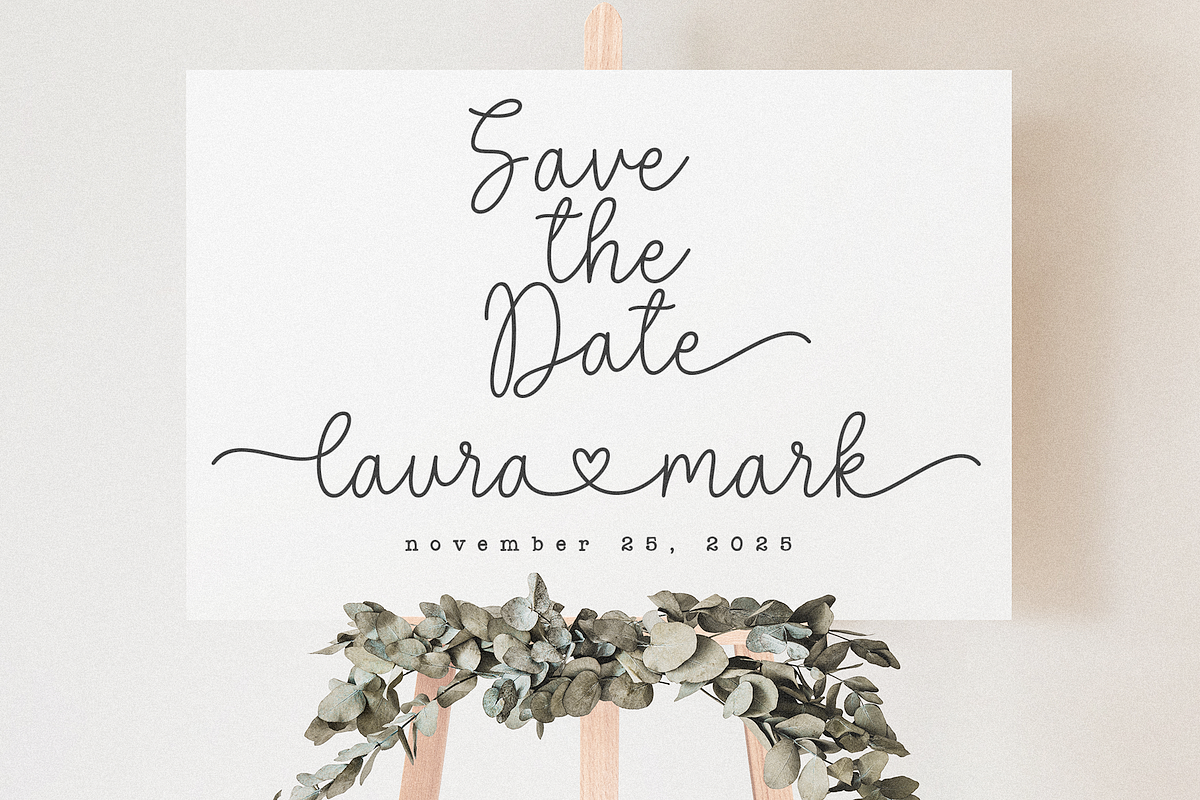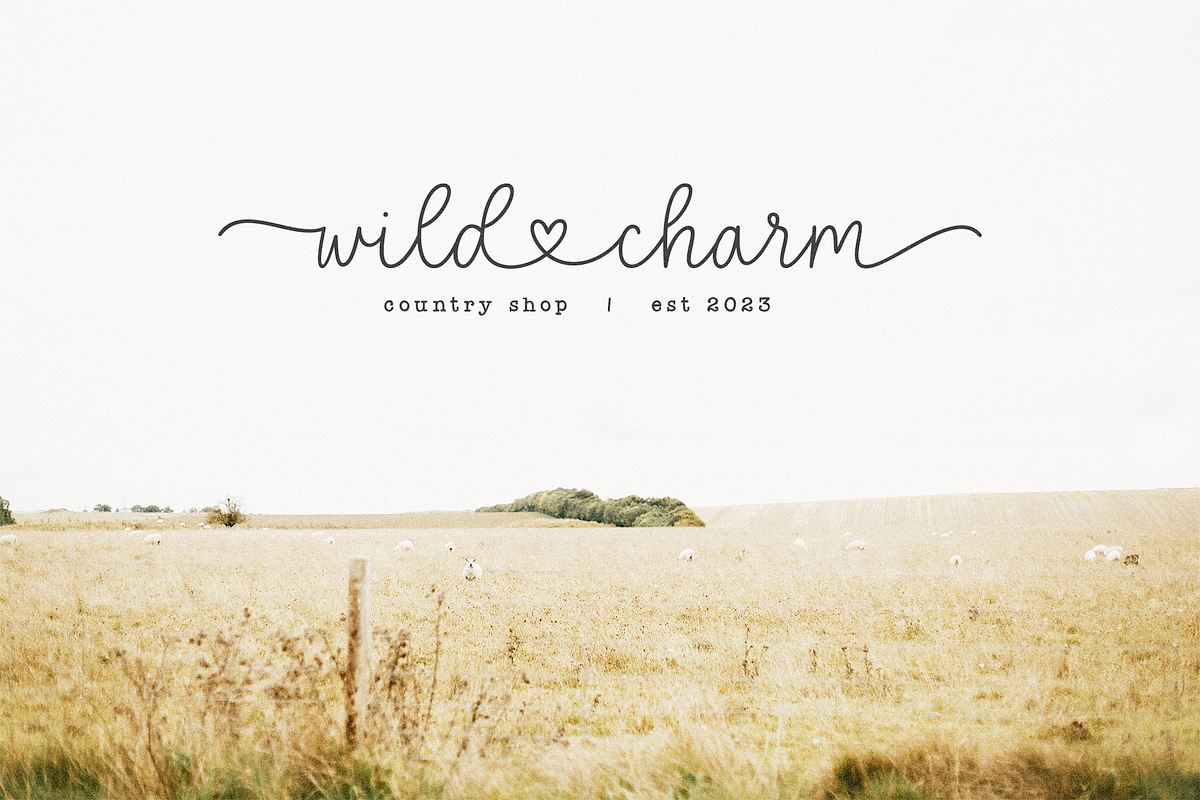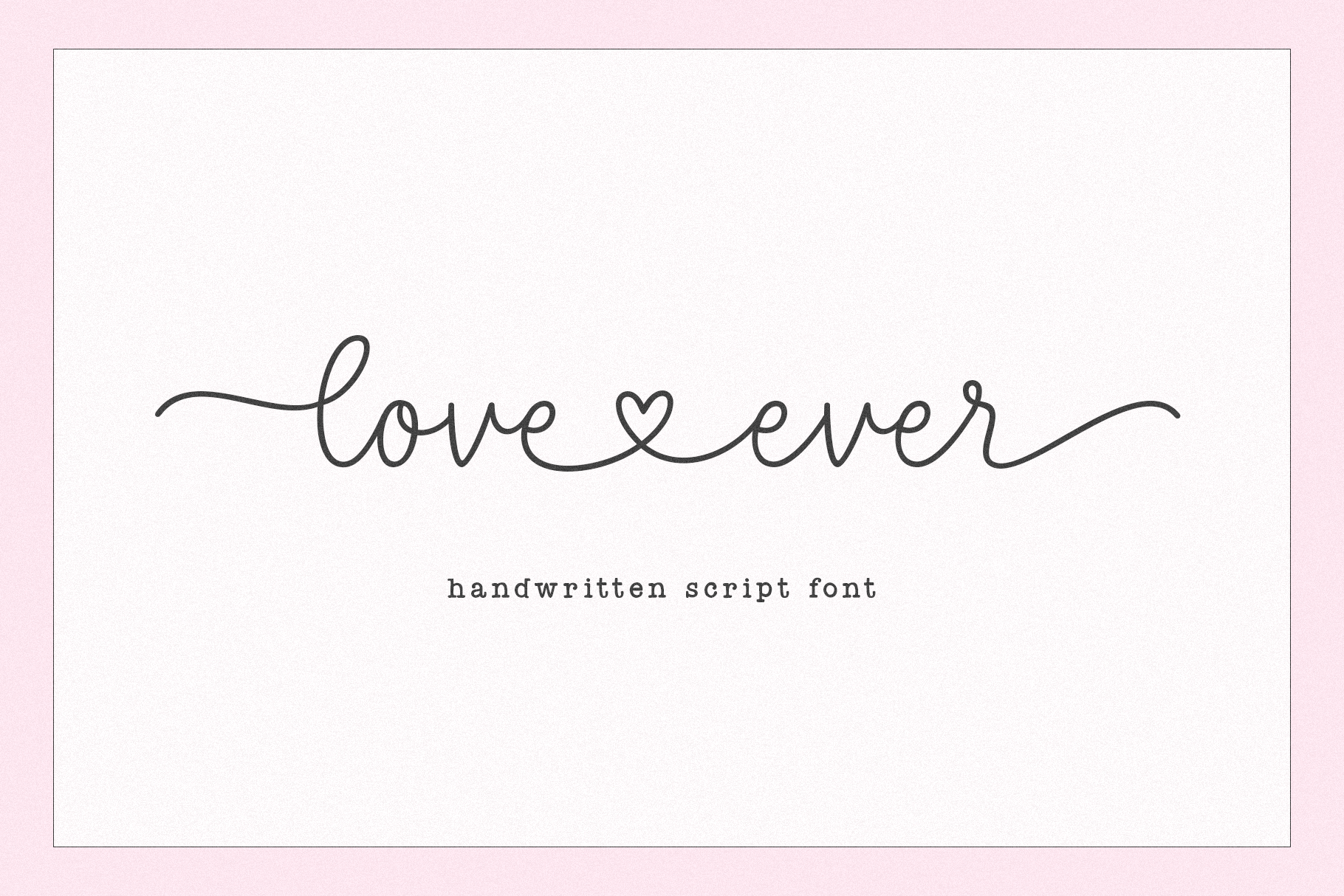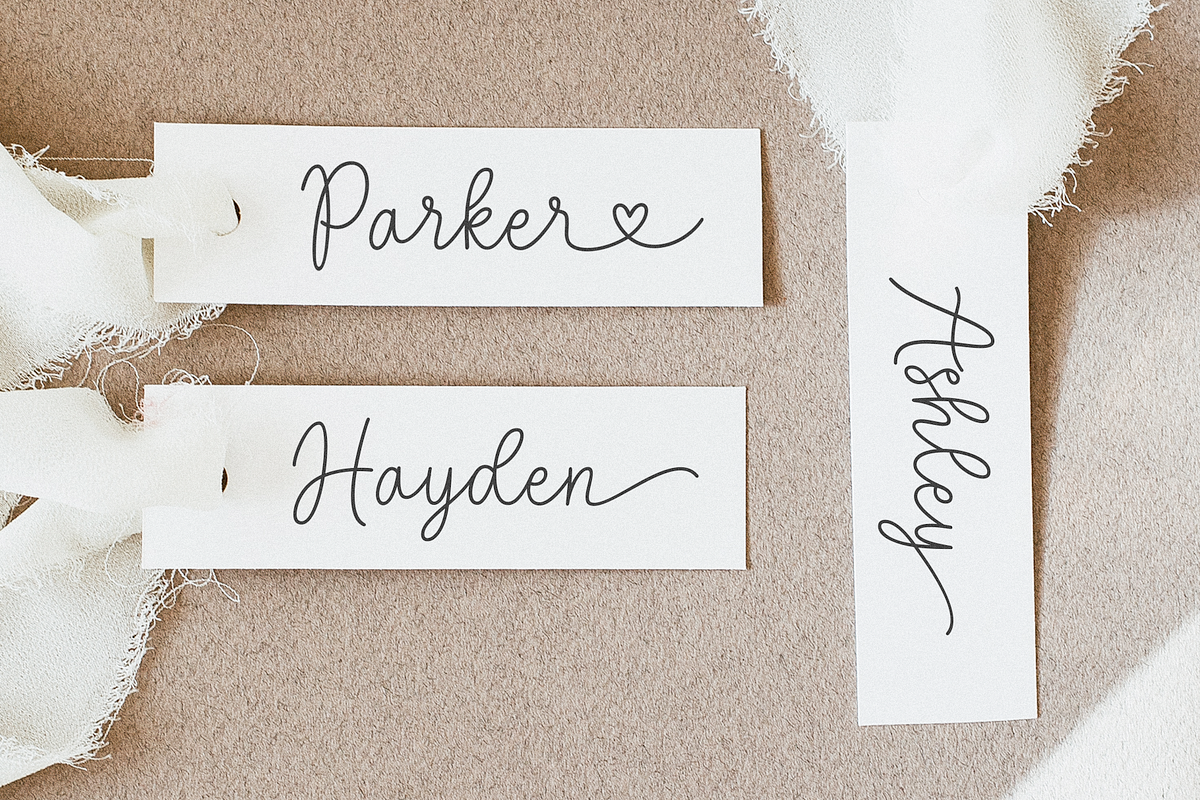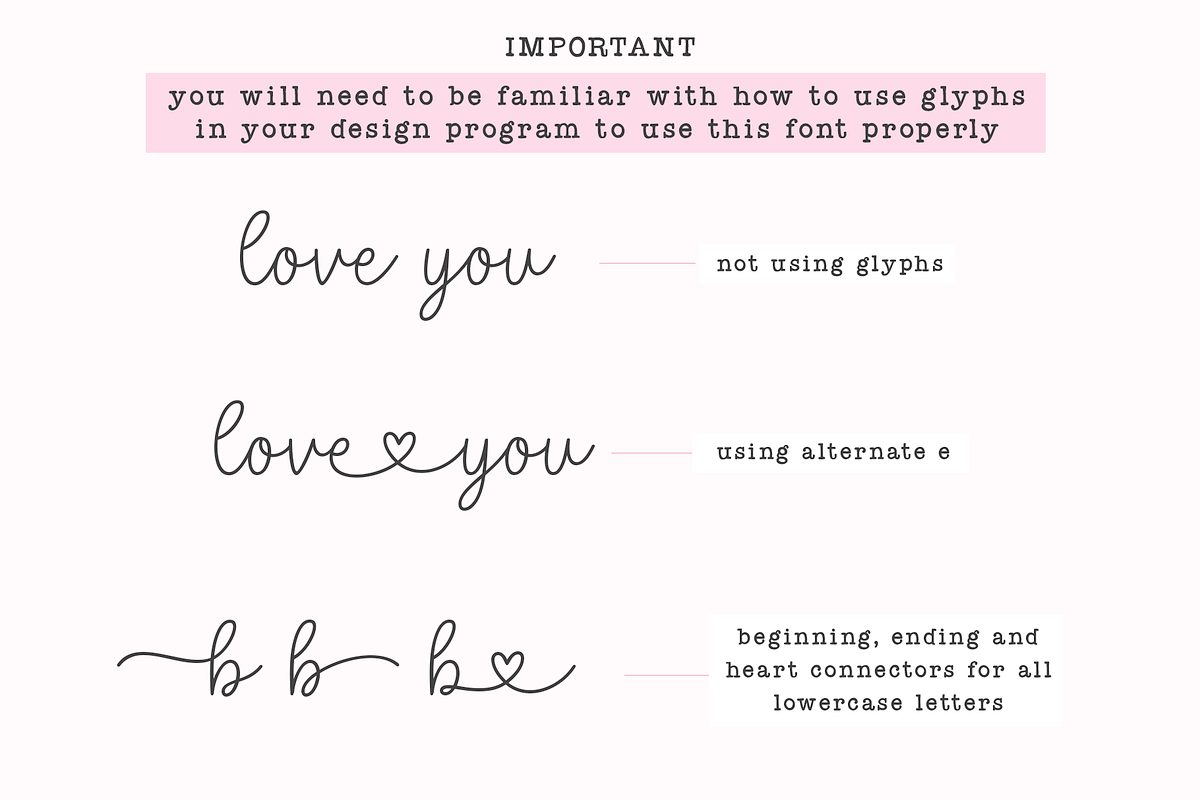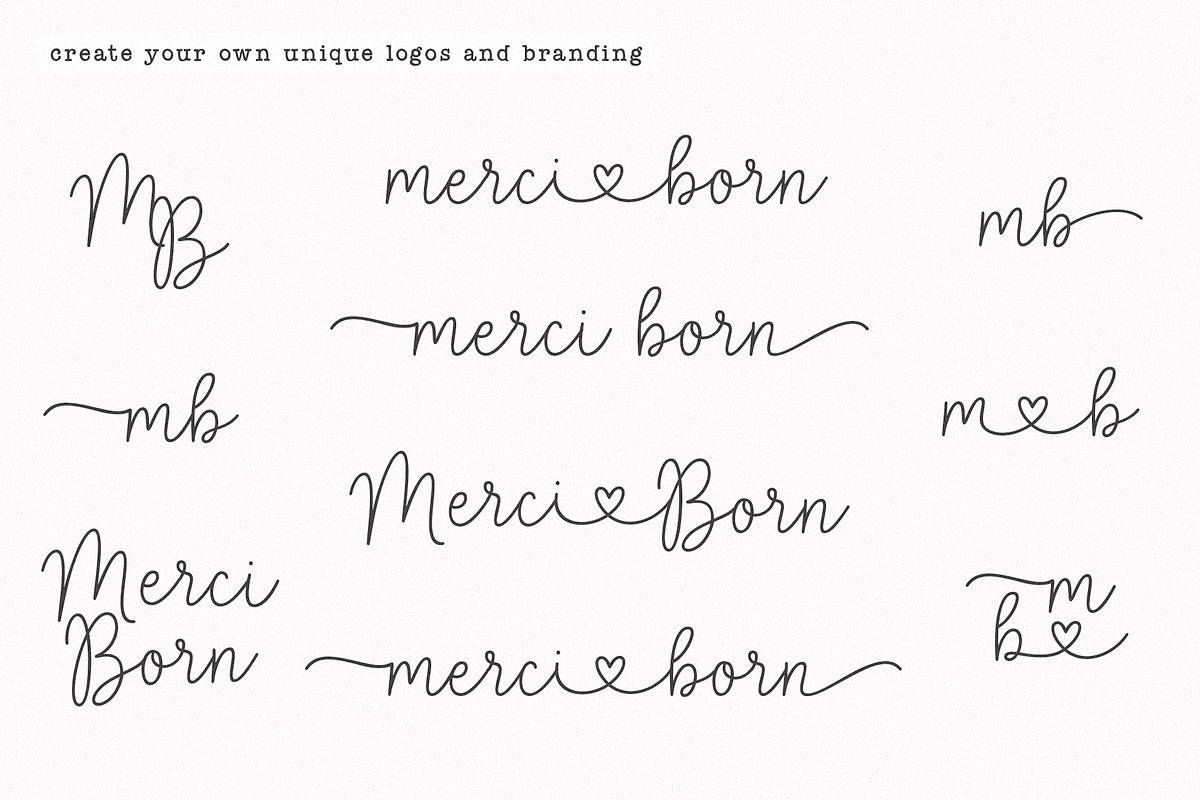
Love Ever | Heart Connector Font
Love Ever is a handwritten script font with heart swash connectors.
- Includes ending heart swashes and beginning/ending swashes for all lowercase letters.
Love Ever is perfect for: logos, wedding invitations, cricut projects, shirts, greeting cards, Canva, wedding signs, farmhouse designs, svg files, Valentine's Day designs and more!